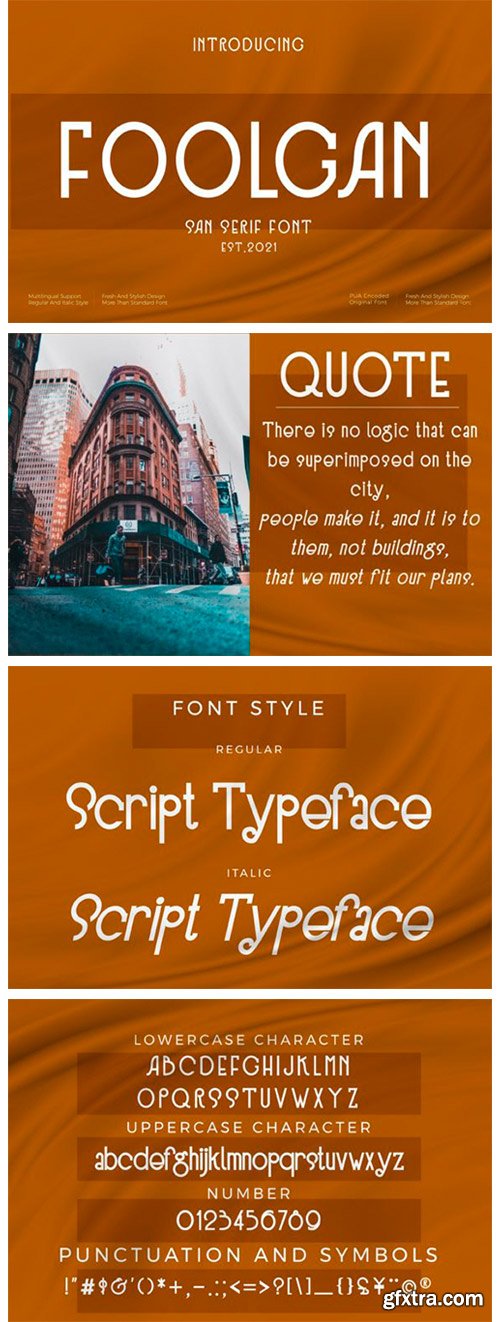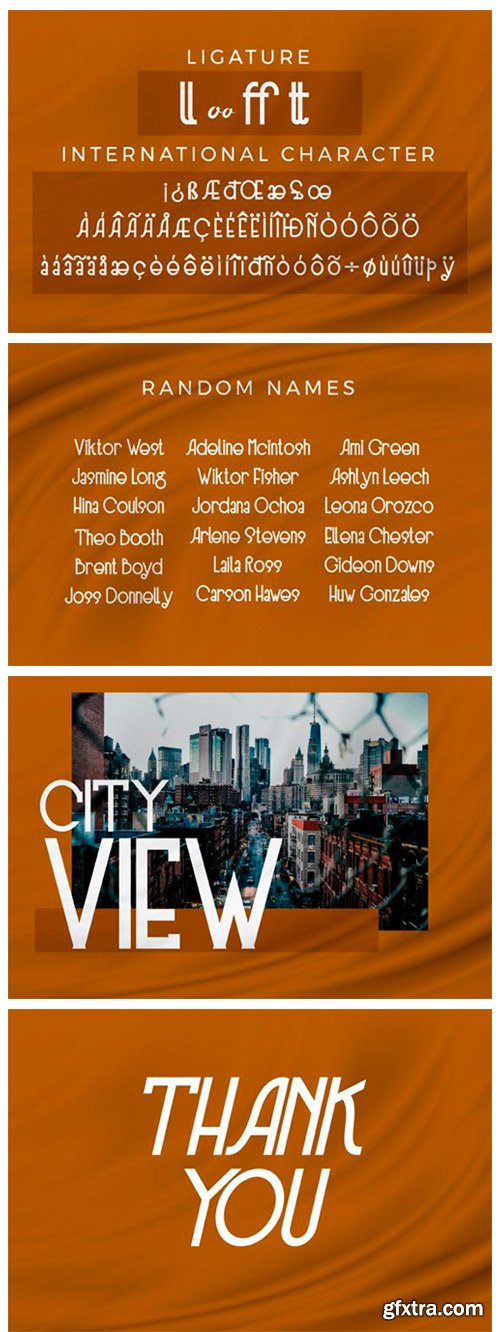
Foolgan Font
Foolgan is a tall and delicate sans serif font. Suitable to a wide variety of designs due to its neat and simple style, this font has the potential to become your favorite go-to font, no matter the occasion!